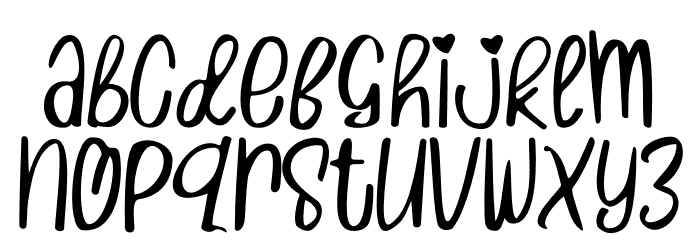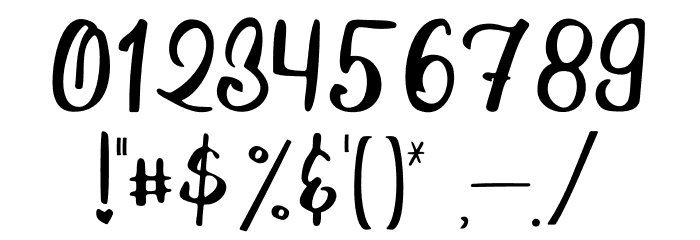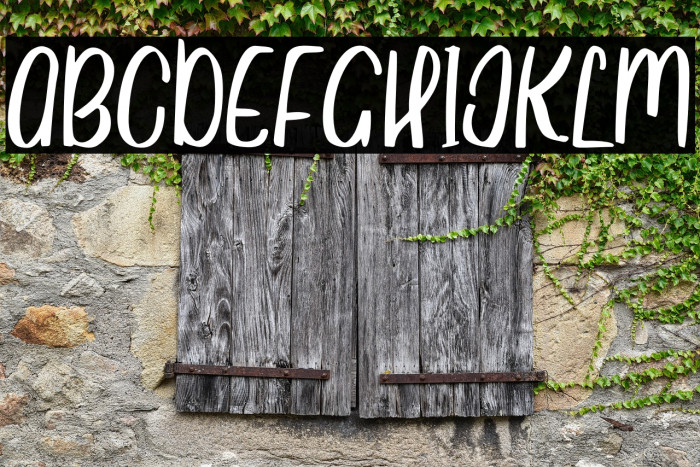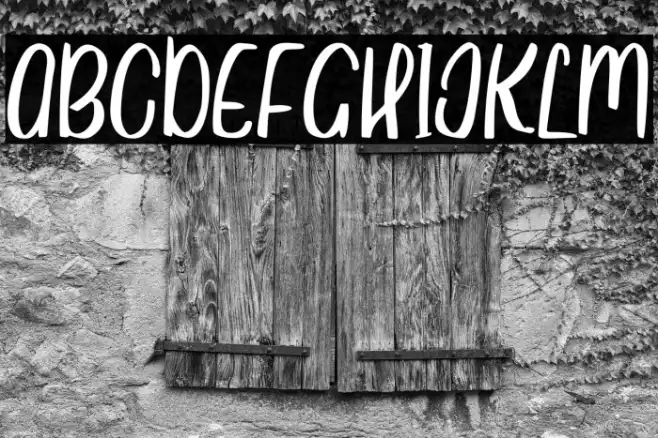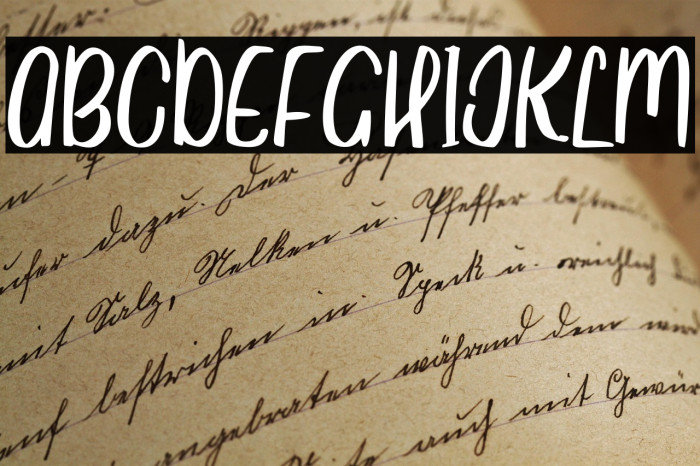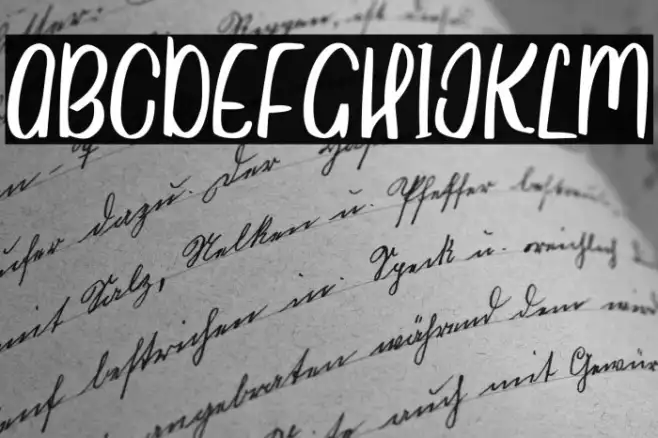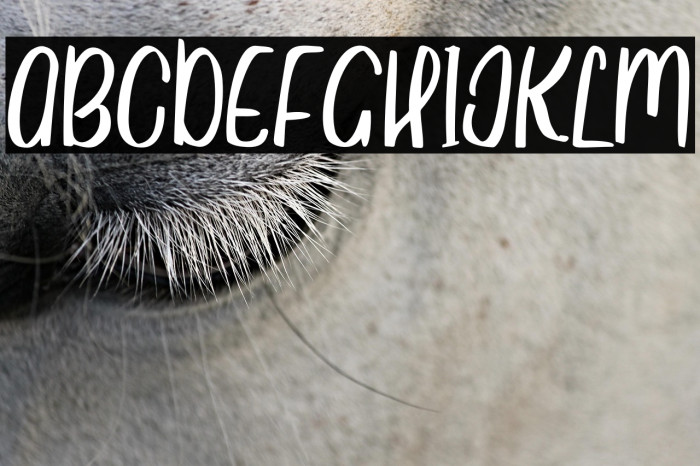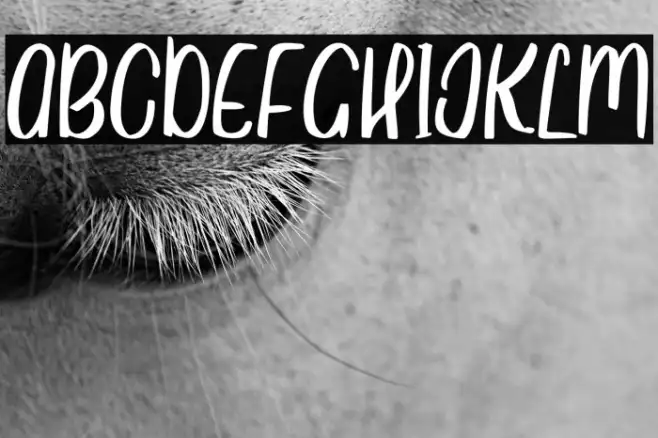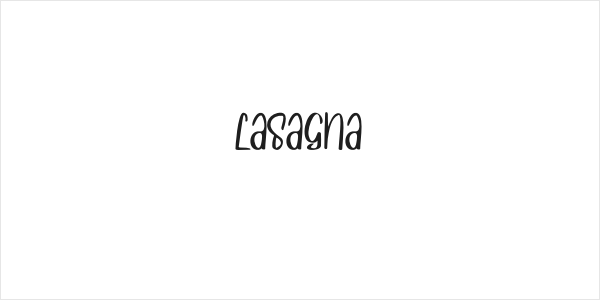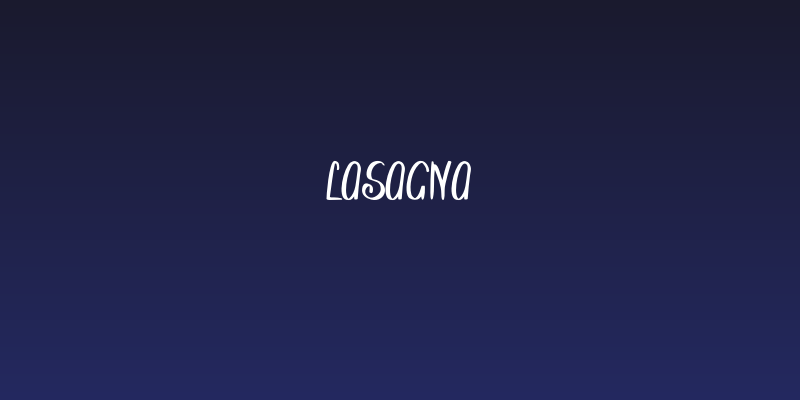
Lasagna Font
This playful and whimsical font features a handwritten style with a lively and energetic flair. The letters are characterized by their smooth, flowing curves and slightly irregular shapes, giving them a casual and friendly appearance. The uppercase and lowercase letters maintain a consistent style, with some letters featuring unique embellishments like small hearts. The numbers and special characters complement the overall design, ensuring versatility in various applications. The font's bold strokes and moderate contrast make it highly legible while retaining its artistic charm.
A playful handwritten font with smooth curves and whimsical details.
- Font: Lasagna
- Proposed Projects: Ideal for greeting cards, children's books, playful branding, and social media graphics.
- Category: Handwritten
- Use Case: Headlines, Logos, Invitations